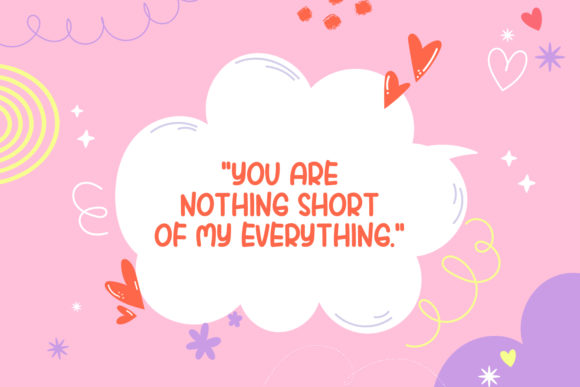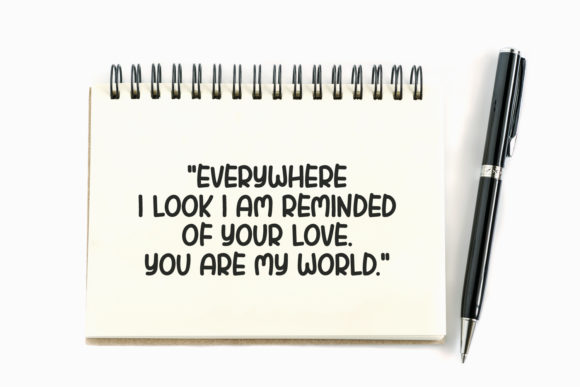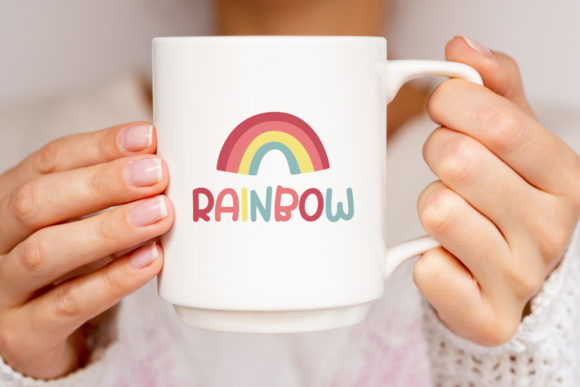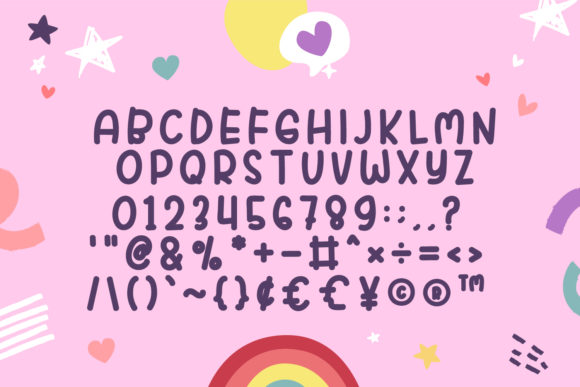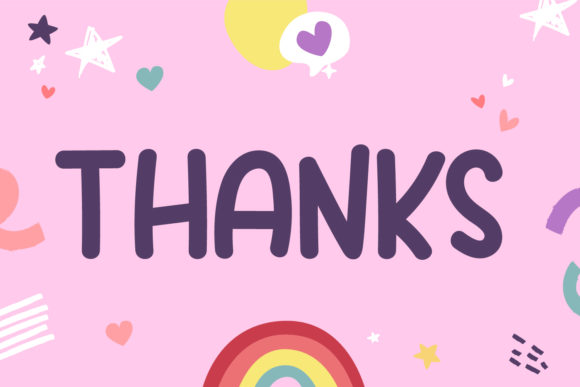
Introduction to Fun Boys Font
Fun Boys is a fun and cute display font that fits perfectly into anything.
Masterfully designed to become a true favorite, this font has the potential to bring each of your creative ideas to the highest level This font is perfect for quotes, shirt designs, websites, branding, childrenโs designs, blogs, logos, invitations and more.